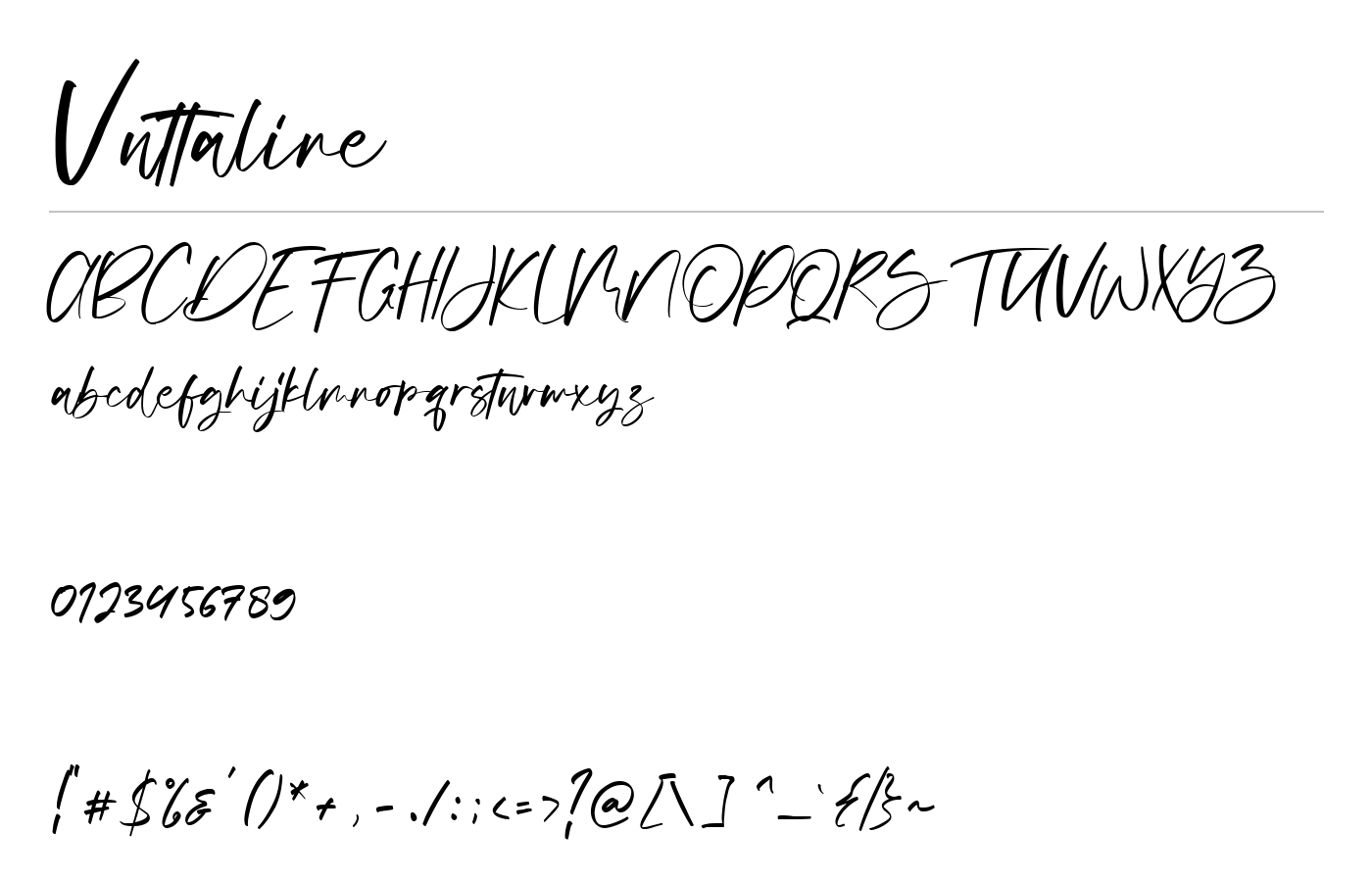
Vuttaline is a lively and elegant handwritten script font with a casual yet refined feel. It features varied stroke widths that mimic natural penmanship, giving it a personal and artistic touch perfect for invitations, branding, and expressive design projects. This font works well for creating a warm, approachable vibe while maintaining sophistication in both print and digital use.
Vuttaline Font
About Vuttaline Font
| Designer | StringLabs |